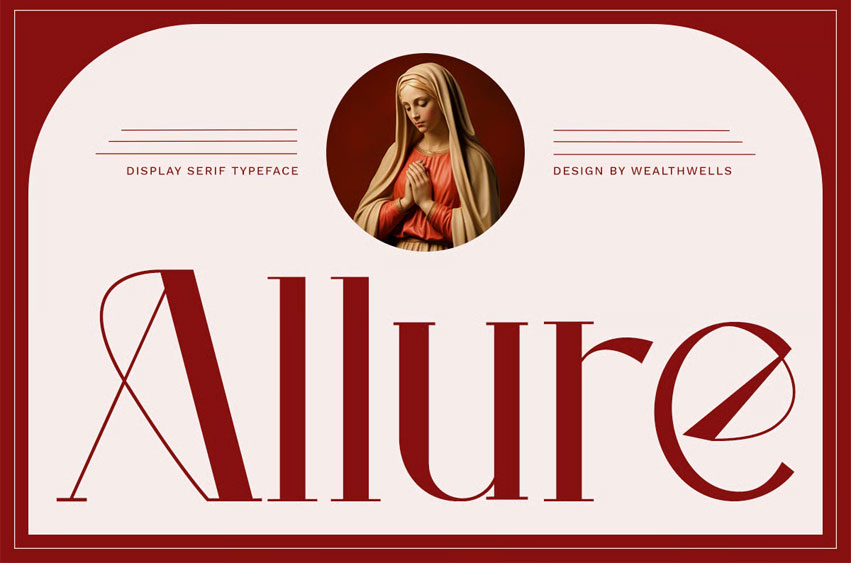
Allure Font is a refined and stylish rounded serif font that radiates timeless elegance and vintage charm. With its soft curves and sophisticated structure, Glamourie is perfect for high-end branding, editorial layouts, packaging, and elegant logo designs. Its graceful aesthetic elevates any project with a touch of classic glamour and modern delicacy.